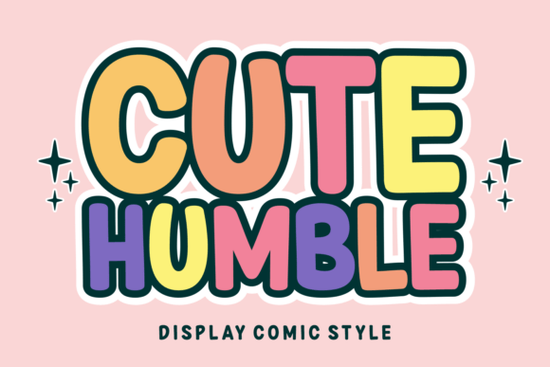
If you're looking for a playful, retro-inspired typeface that still feels fresh and readable, the Cute Humble Font might be exactly what your next creative project needs. Designed with whimsy in mind, it blends bubble-letter charm with 70s-inspired grooviness making it a natural fit for everything from kids’ birthday invitations to YouTube thumbnails and printable planners.
What sets Cute Humble apart is how effortlessly it balances nostalgia with modern usability. The letters have a soft, rounded form that’s easy on the eyes, yet bold enough to stand out on merchandise like t-shirts or stickers. If you’ve ever wanted to add a touch of vintage sweetness without sacrificing clarity, this font delivers.
Where does Cute Humble work best?
This display font shines in contexts where personality matters more than formal tone. Think:
- Kids’ products – packaging, labels, or activity books
- Event decor – birthday banners, party invites, or photo booth signs
- Digital content – YouTube thumbnails, social media graphics, or digital planner elements
- Print-on-demand items – mugs, tote bags, or wall art with a retro or cottagecore vibe
How does it compare to other playful fonts?
If you enjoy fonts with character but want something distinct from overly geometric or ultra-modern styles, Cute Humble offers a warmer, more organic alternative. It pairs especially well with other retro or handcrafted typefaces. For example, you might combine it with something like Disco Charm for a full 70s revival look, or contrast it with the sporty texture of Varsity Rough for dynamic branding.
On cooler days (or for winter-themed projects), Rainy Winter offers a softer, moodier companion though Cute Humble’s cheerful energy usually stands best on its own or alongside similarly upbeat fonts.
Is it beginner-friendly?
Absolutely. Even if you’re new to typography, Cute Humble’s intuitive shapes make it easy to use. The generous spacing and clear letterforms reduce the guesswork when laying out text for print or screen. Plus, it supports multiple languages, so you’re covered whether you’re designing for English, Spanish, French, or several other Latin-based scripts.
One practical tip: because it’s a display font, it’s best used for headlines, logos, or short phrases not body text. But within those limits, it’s remarkably flexible. Try it in all caps for bold signage, or mix uppercase and lowercase for a more casual, handwritten feel.
Quick checklist before you use Cute Humble:
- Use it for short text only headlines, names, quotes, or labels.
- Pair it thoughtfully avoid combining with other highly decorative fonts; opt for clean sans-serifs or complementary retro styles.
- Test readability at small sizes while it’s clear in most contexts, very tiny prints (like fine sticker details) might lose some charm.
- Check multilingual support if your audience uses accented characters.
If your brand, craft project, or digital content leans into warmth, nostalgia, or playful simplicity, Cute Humble could become a go-to in your toolkit. It’s not just cute it’s reliably useful. Give it a try the next time you need typography that smiles back.